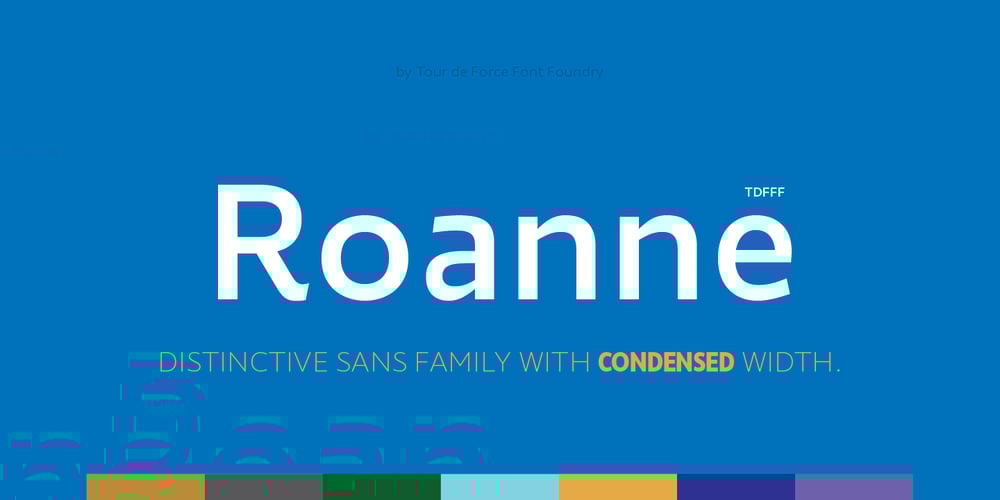
Roanne Font Family was designed by Dusan Jelesijevic and published by Tour De Force. Roanne contains 44 styles and family package options. Roanne is a sans serif family named after a town in France. This font family contains 2 width variations: Normal and Condensed, and all together counts 44 font styles. Equipped with OpenType features (Tabular Figures, Fractions, Stylistic Alternates, Localization for Serbia, Poland and the Netherlands, Case Sensitive brackets) for extended Latin and Cyrillic character set with a small charming set of Dingbats.For easier usage as webfont, Roanne font files contain numeric values for CSS weight attribute – 100, 150, 200, 300, 400, 500, 600, 700, 800, 850, 900.